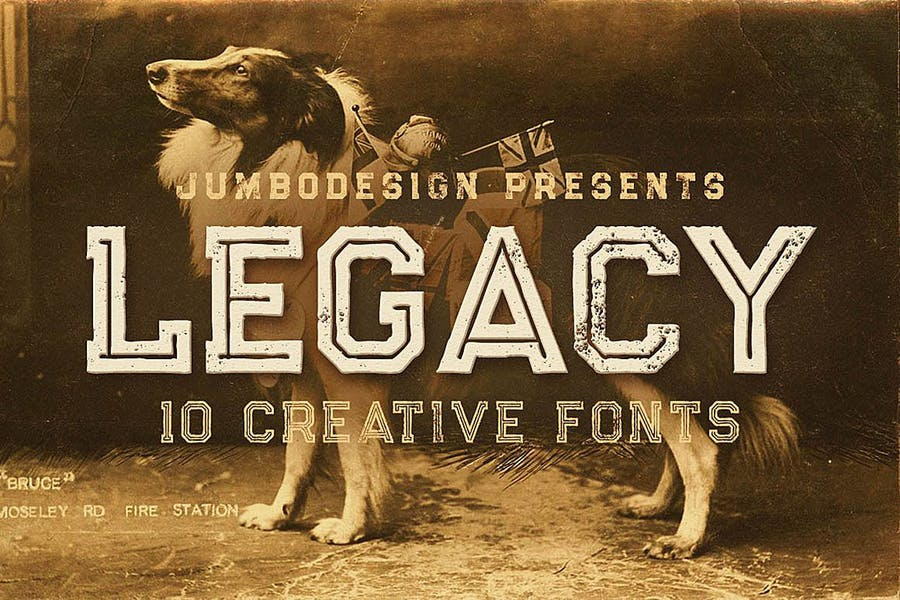
Legacy - Vintage Style Font
Legacy - Vintage Style Font is perfect for heritage brand identities, family business logos, traditional estate signage, vintage law firm materials, classic university communications, ancestral genealogy displays, historical preservation projects, old-world craft labels, established company branding, and timeless memorial designs.
Legacy - Vintage Style Font creates excitement because it embodies the enduring power of tradition and generational wisdom with its distinguished letterforms and time-honored aesthetic. The font's stately character design and classical proportions instantly convey permanence and established authority, making any brand appear trustworthy and deeply rooted in tradition. Its carefully crafted vintage details and dignified presence create an immediate sense of inheritance that captivates audiences seeking brands with proven longevity, established reputation, and the credibility that comes from generations of excellence.
The Legacy - Vintage Style Font family includes multiple weights and styles: Regular, Bold, Light, Medium, Italic, Condensed, Extended, Aged, Ornamental, and Heritage versions. Each variant preserves the font's distinguished legacy character while offering different levels of formality and traditional styling suitable for various heritage and establishment applications.
This distinguished typeface represents the pinnacle of traditional typography for organizations built on enduring values and generational excellence. Legacy - Vintage Style Font Free Download provides established institutions and heritage brands with access to premium vintage typography that embodies the strength of proven tradition and lasting quality. The font's authoritative design and classical heritage make it ideal for organizations seeking to communicate their established position and generational expertise across diverse markets and cultural contexts. Whether you're developing brand identities for family enterprises, creating materials for educational institutions, designing communications for legal practices, or producing content for heritage hospitality venues, this font delivers the established credibility that resonates with audiences seeking proven reliability, traditional values, and the assurance of generational expertise. Its timeless design ensures outstanding performance across both formal documentation and prestigious marketing materials while maintaining the dignity of classical typography. The font excels in applications requiring institutional authority and traditional appeal. Established professionals appreciate its ability to convey heritage while remaining highly functional for various formal communications and ceremonial applications. The comprehensive character set includes traditional ornamental elements and extensive international language support, making it suitable for global heritage institutions and multinational family enterprises seeking to communicate established tradition, generational wisdom, and enduring quality to diverse international audiences who respect proven excellence, traditional craftsmanship, and the invaluable heritage that comes from generations of dedicated service and unwavering commitment to excellence.